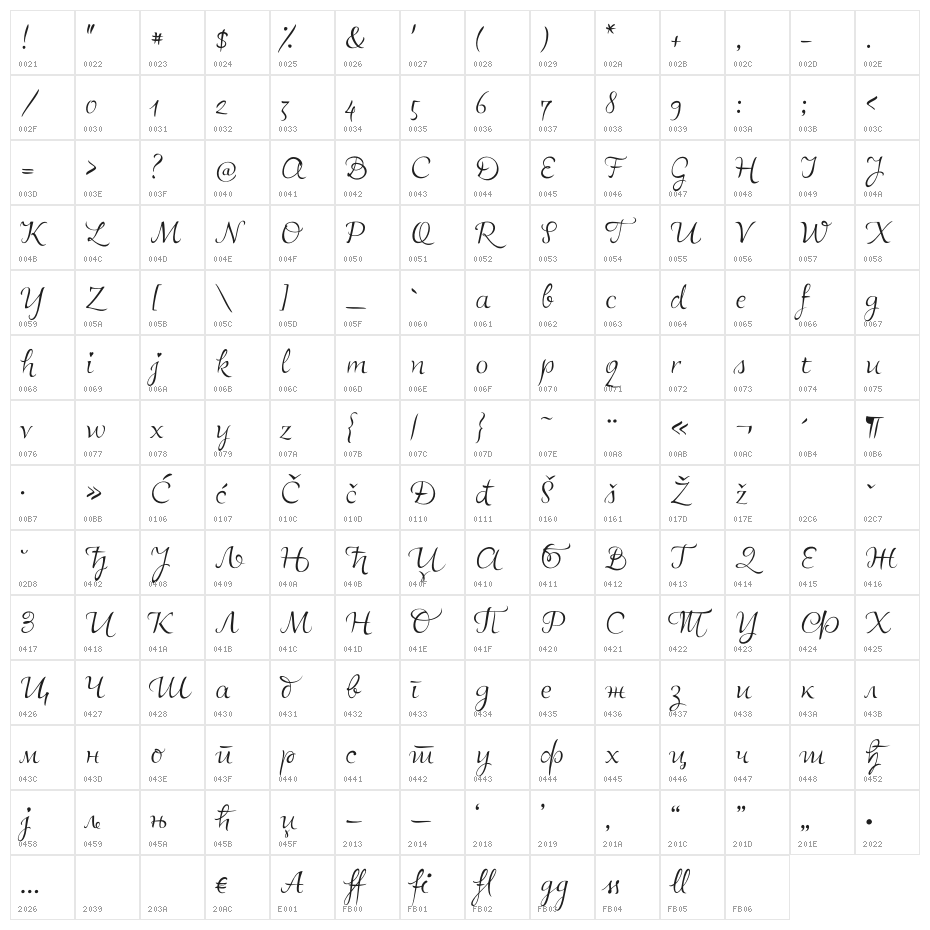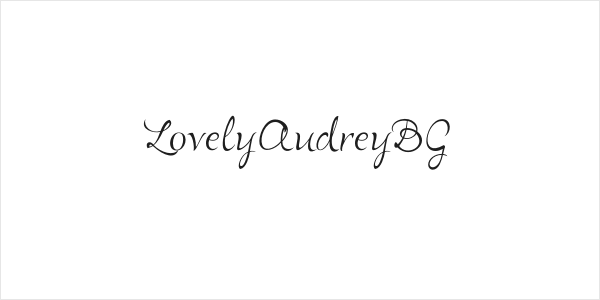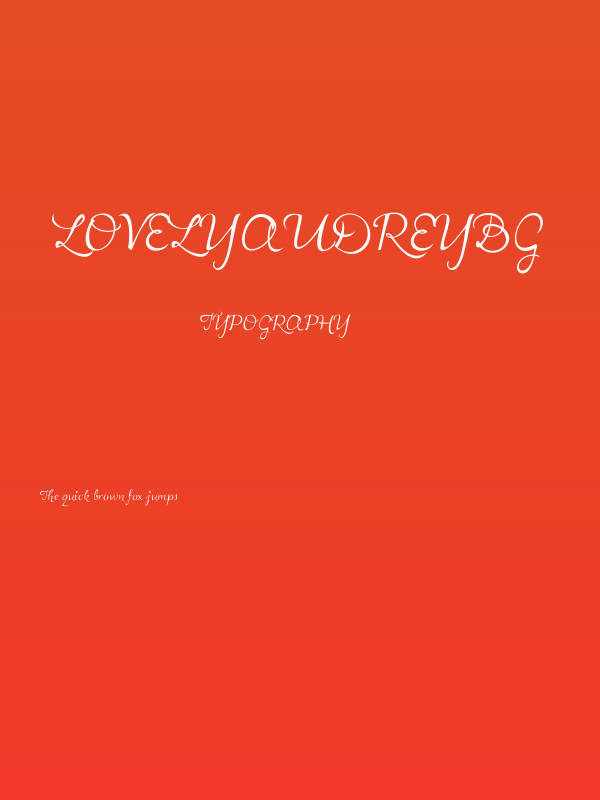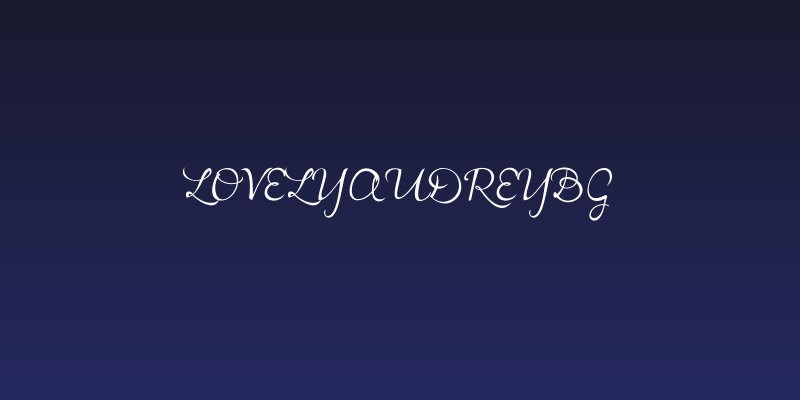
LovelyAudreyBG Font
LovelyAudreyBG Description
This elegant script font features flowing, cursive letterforms with a graceful and sophisticated appearance. The uppercase letters are slightly more ornate, with gentle curves and loops that add a touch of flair. The lowercase letters maintain a consistent style, with some characters featuring unique embellishments, such as small heart shapes. The numerals are clear and legible, maintaining the overall script style. Special characters are designed to complement the font's aesthetic, making it suitable for decorative purposes. The font's smooth strokes and balanced proportions create a harmonious and inviting look.
| Proposed Projects | Ideal for wedding invitations, greeting cards, branding, and elegant packaging designs. |